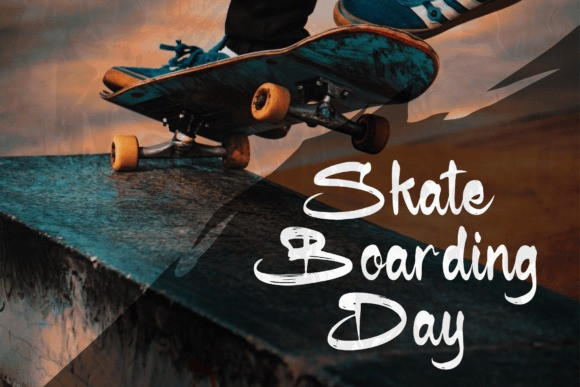
Anyboster Kladigta Font
Anyboster Kladigta Font is an urban script font from Glorytype Studio, suitable for a variety of projects such as logos, branding projects, homeware designs, product packaging, mugs, quotes, posters, shopping bags and all your other lovely projects that need a beautiful script taste.